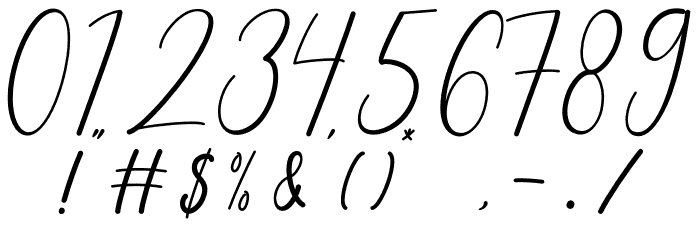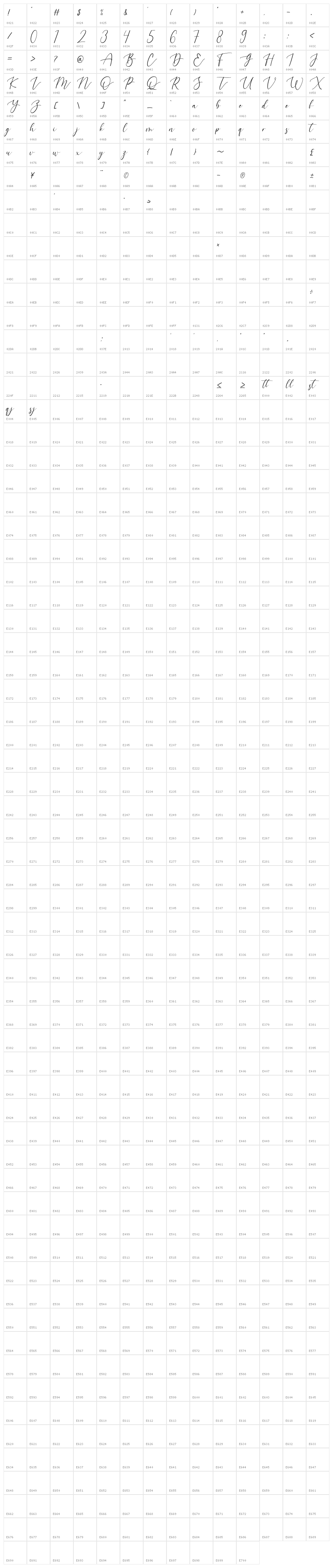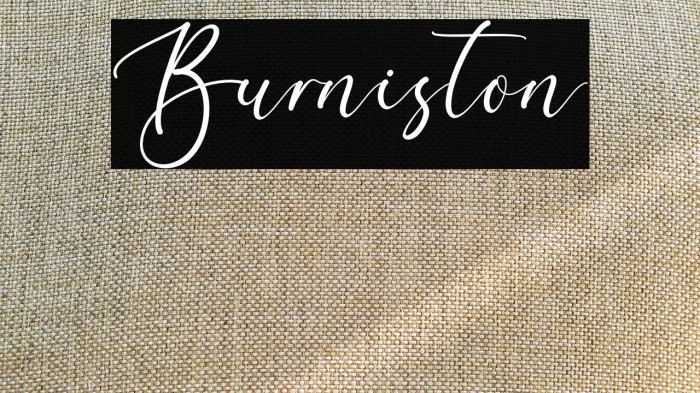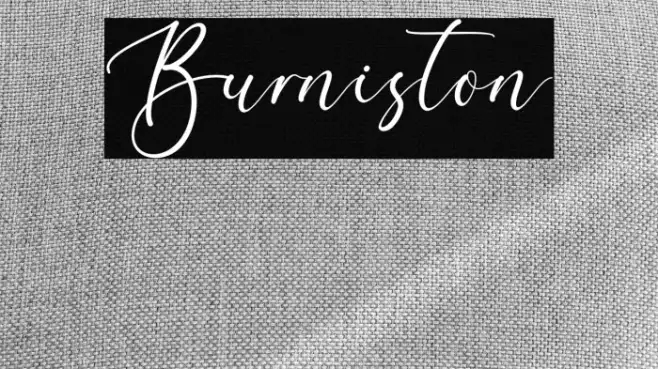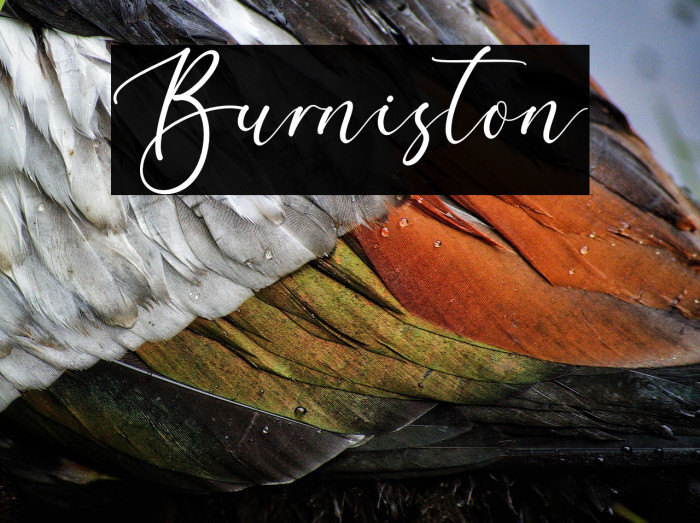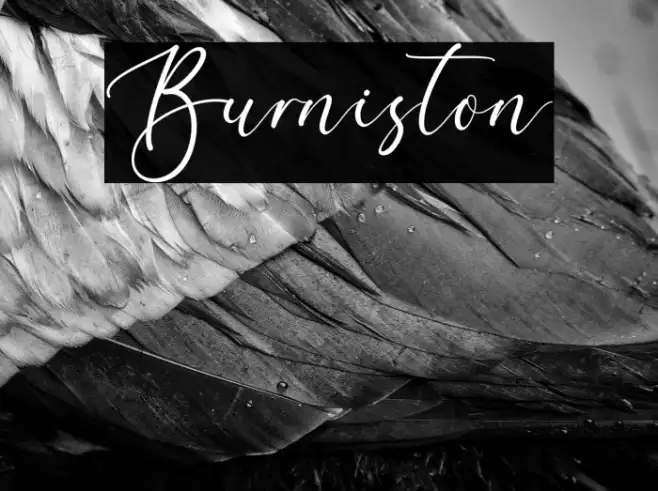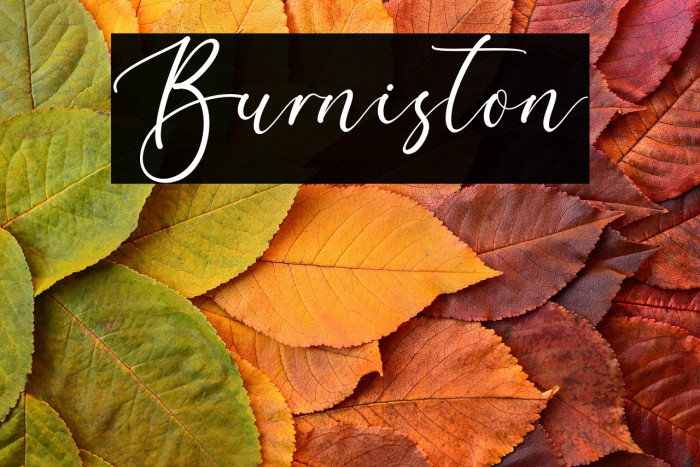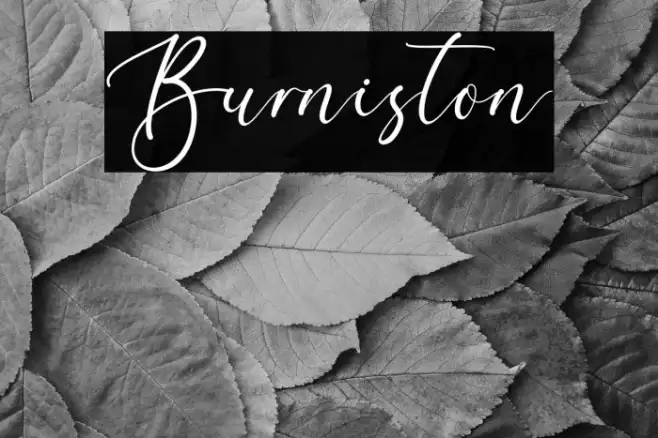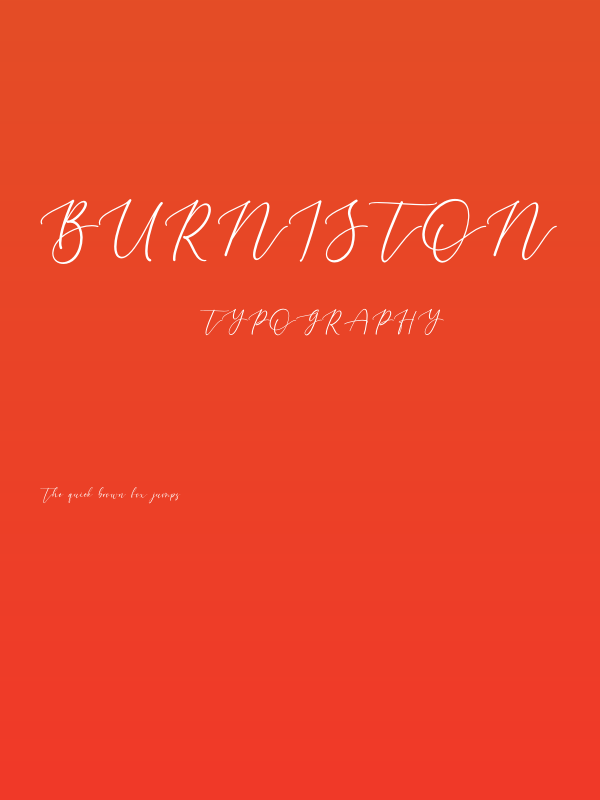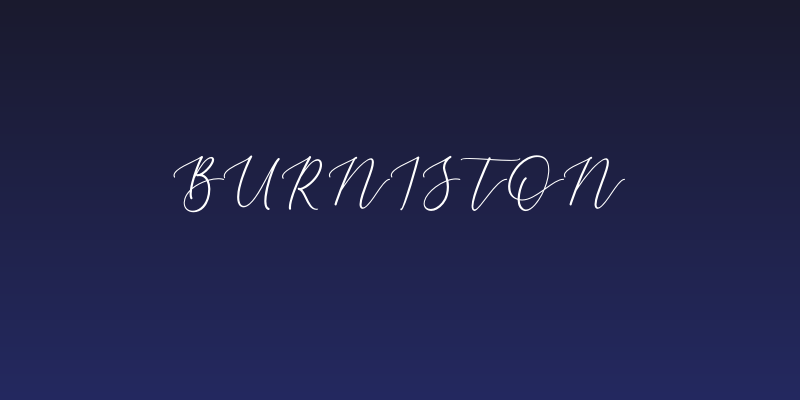
Burniston Font
Burniston Description
This font features an elegant and flowing script style, characterized by its smooth, cursive letterforms that convey a sense of sophistication and grace. The uppercase letters are tall and slender, with gentle curves and loops that add a touch of whimsy. The lowercase letters maintain a consistent flow, with some characters extending slightly below the baseline, enhancing the font's dynamic appearance. Numbers are designed with a similar elegance, maintaining the overall aesthetic. The special characters complement the script style, ensuring a cohesive look across all text elements.
| Overall Style | Elegant, Sophisticated |
| Proposed Projects | Ideal for wedding invitations, elegant branding, personal stationery, and artistic projects requiring a touch of sophistication. |